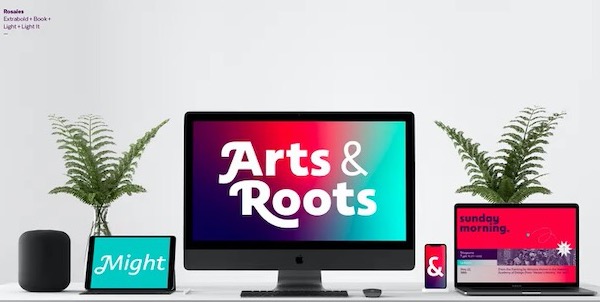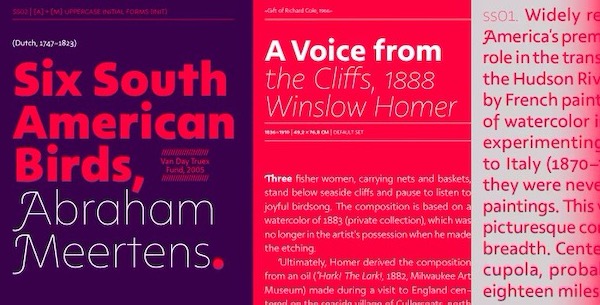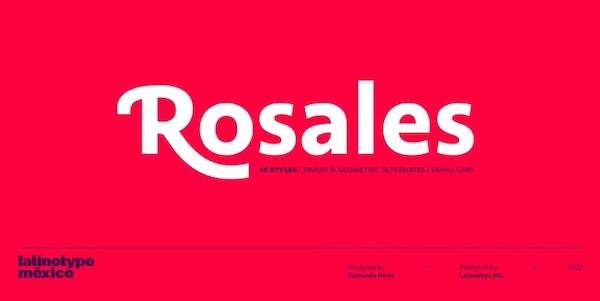
Rosales is a great Sans Serif font that was created by Fernando Pérez and was released by Latinotype Mexico. It will integrate humanist style with geometry in typography highly inspired by contemporary design style. It has eight weights in the round and italic variants, which also have a set of initial capital letters, small caps, Oldstyle, and Lining figures, as well as two stylistic sets that allow for more humanist or more geometric versions. Basically, it covers whatever you’re going to need.
Rosales Sans Serif Font
Designer Name: Fernando Pérez
Publisher: Latinotype Mexico